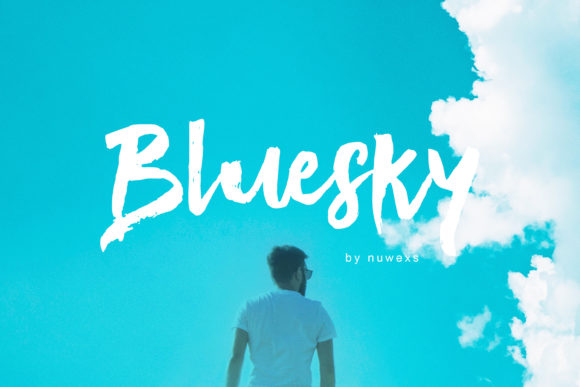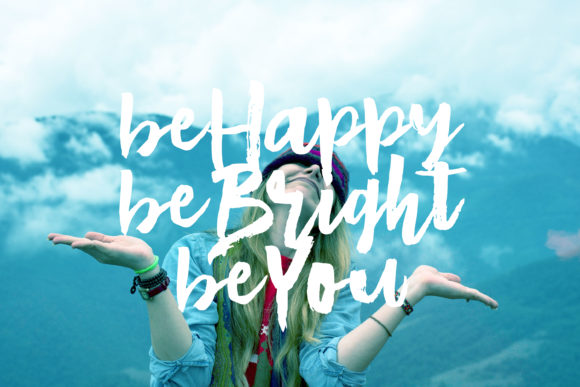
About Bluesky Font
Bluesky looks bold, yet sophisticated and features chunky and extended characters that will look particularly adept when used in logos, branding, packaging design, and much more. This masterfully designed script is a true must-have.